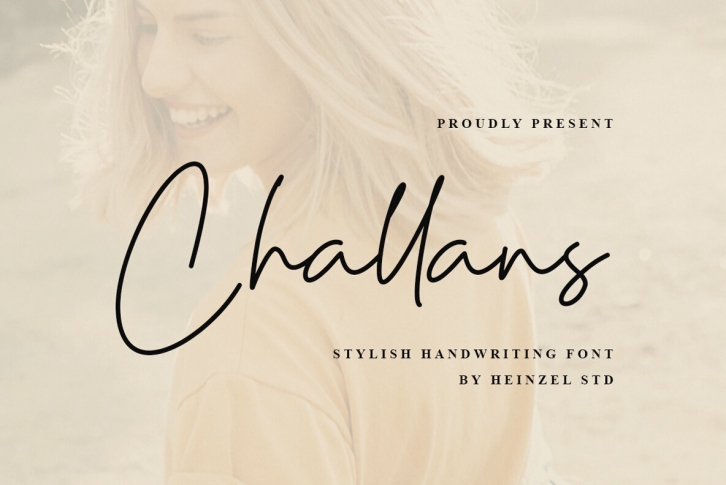
Challans is a stylish handwritten font, described by an elegant touch, perfect for your favorite projects. It looks stunning on wedding invitations, thank you cards, quotes, greeting cards, logos, business cards, and every other design that needs a handwritten touch. Fall in love with its incredibly distinct and timeless style and use it to create spectacular designs!